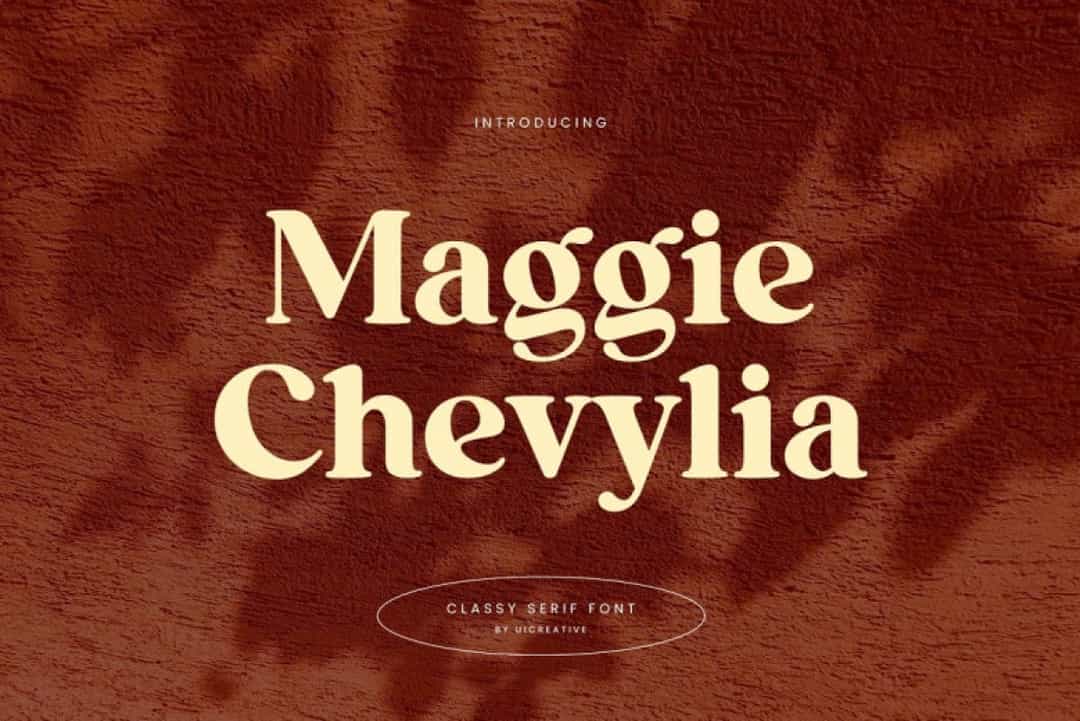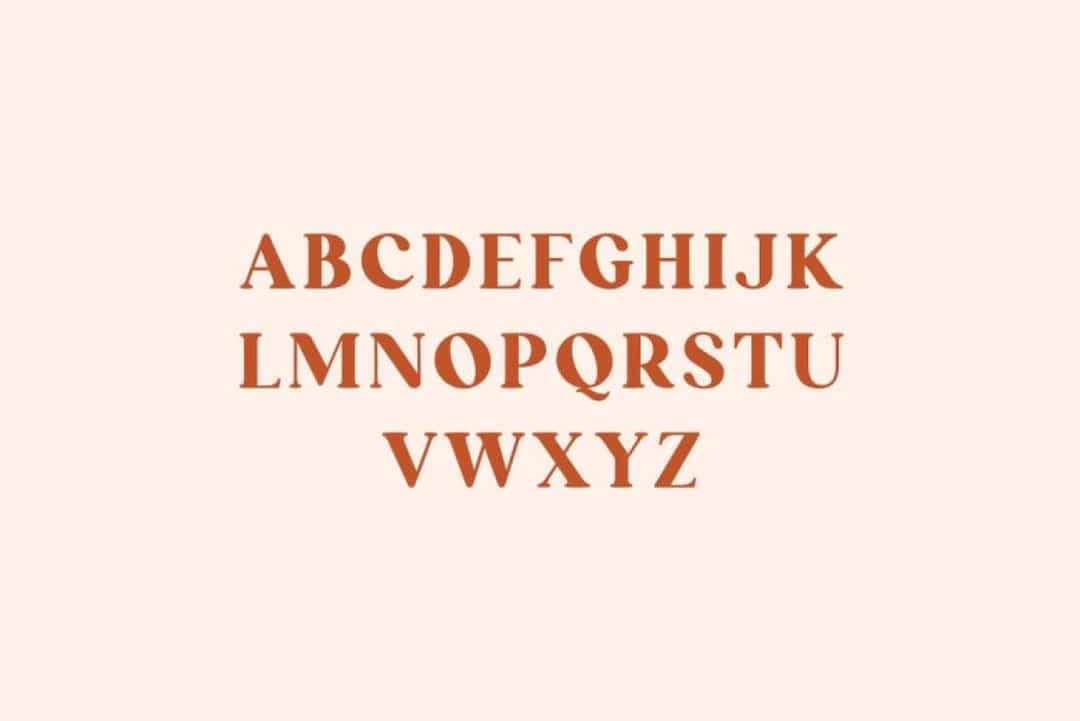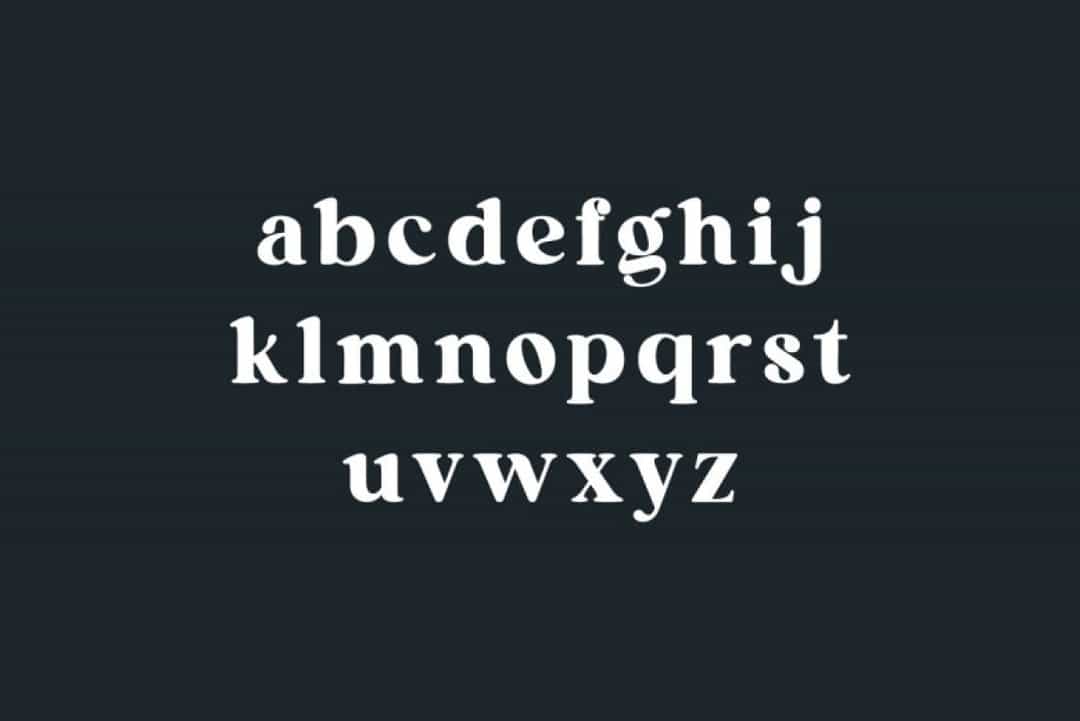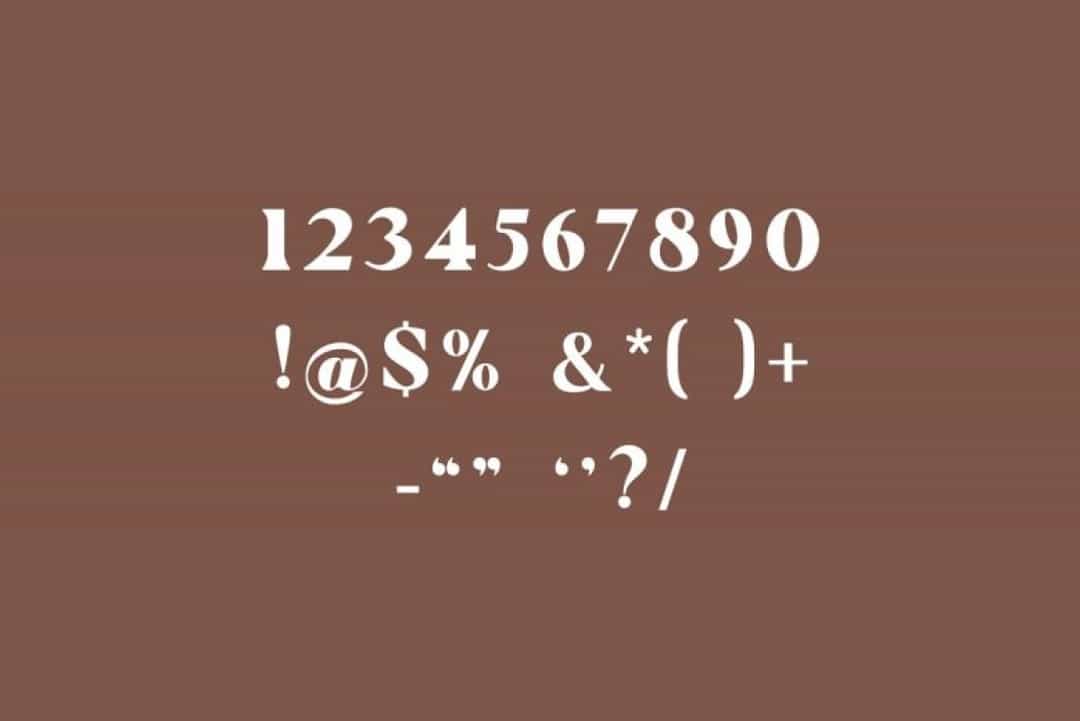
Maggie Chevylia is an elegant, sophisticated, and contemporary serif typeface. Perfect for use in designs ranging from logos, stationery, signature wedding invitations, typography quotes on book covers or magazine covers as well as headers for websites and branding clothing packaging – its versatile use covers numerous uses! Fashion-related editorial designs also display its feminine qualities as part of its appeal.